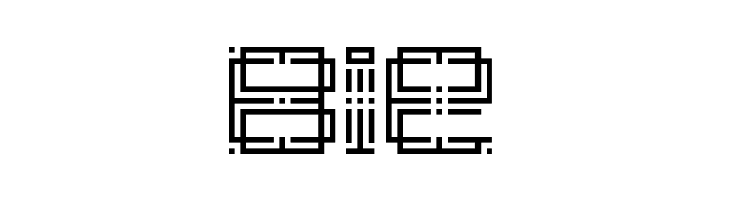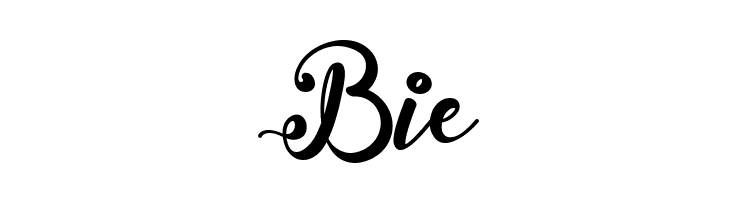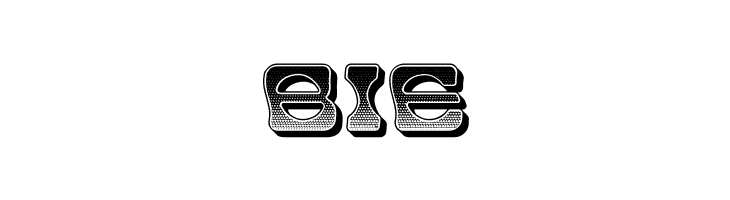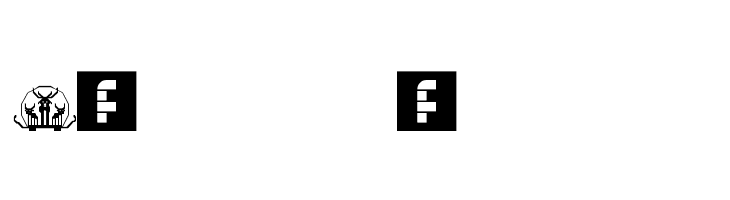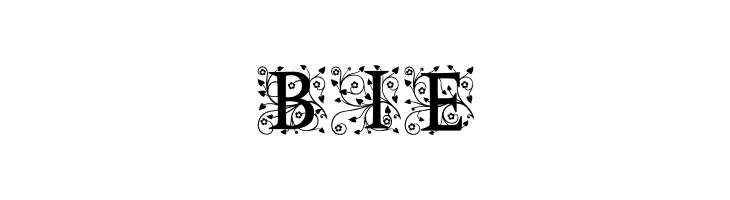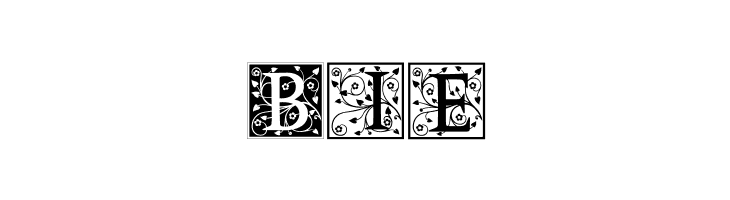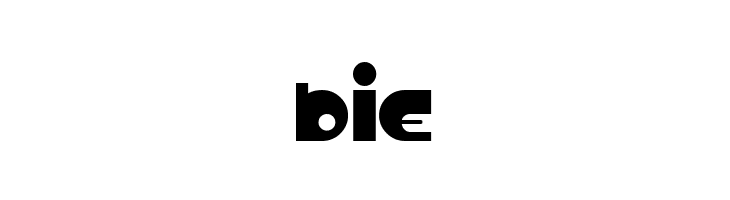
An ornate, decorative font with intricate floral designs within square borders.
An ornate and decorative serif font with intricate floral embellishments.
A bold, decorative font with a 3D effect and vintage flair.
A bold, geometric font with a futuristic and modern design.
A futuristic, geometric font with intricate line patterns and a digital aesthetic.
An elegant and artistic font with elongated, flowing letterforms.
An artistic and flowing font with elongated, dynamic letterforms.
A decorative font with intricate, culturally inspired illustrations replacing traditional letterforms.